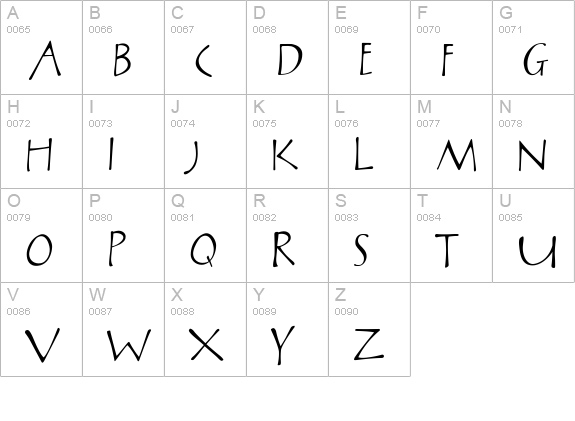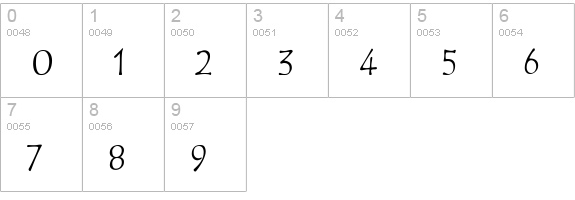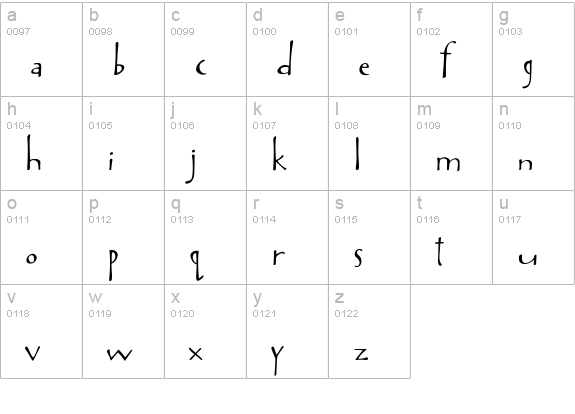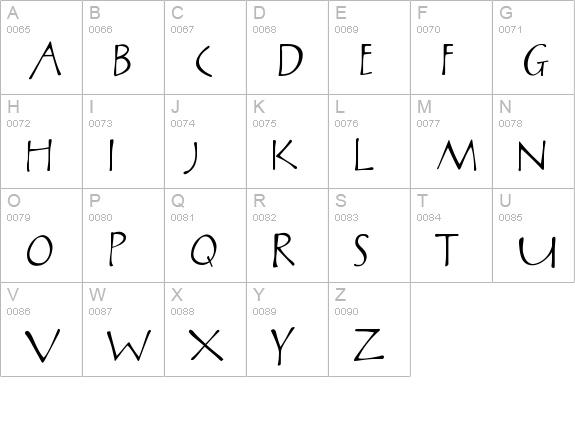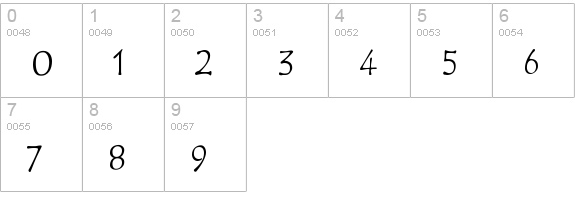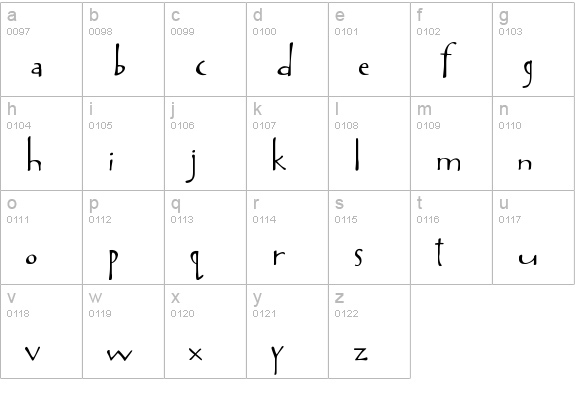
AvrilRegular Font Details
AvrilRegular font is a versatile and elegant typeface that exudes modernity and sophistication. Its clean lines and smooth curves make it perfect for a wide range of design projects, from branding to editorial design. Whether you're creating a sleek logo or crafting a stylish brochure, AvrilRegular is sure to make a lasting impression. Best of all, AvrilRegular is available for free download at FontsMarket.com. This means you can add this stunning font to your collection without any cost, making it an invaluable resource for designers on a budget. Don't miss out on the opportunity to enhance your projects with the timeless beauty of AvrilRegular font – download it today and let your creativity soar!